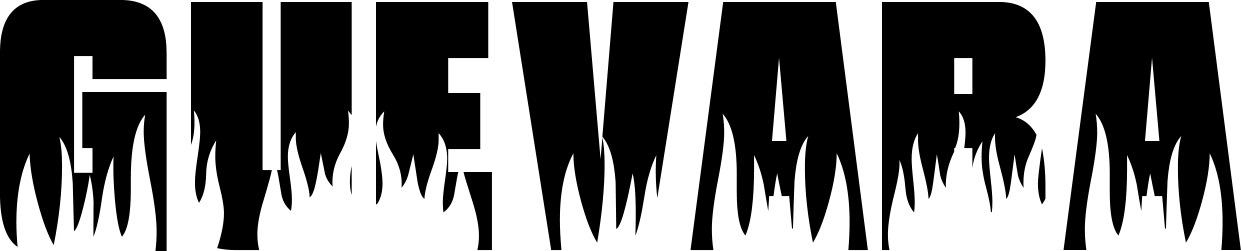
Guevara Font
Add this fire font to your selection and you will find your typography more interesting with lettering that has firey and flame effects. Guevara has letterforms that are two-toned with patterns creating an awesome look with a blaze feel, but it can be not easy to read.
Guevara provides you with only capitalized alphabets, numbers, and symbols that are excellent for many different designs in places similar to posters, magazines, streetwear, clothing, and packaging.